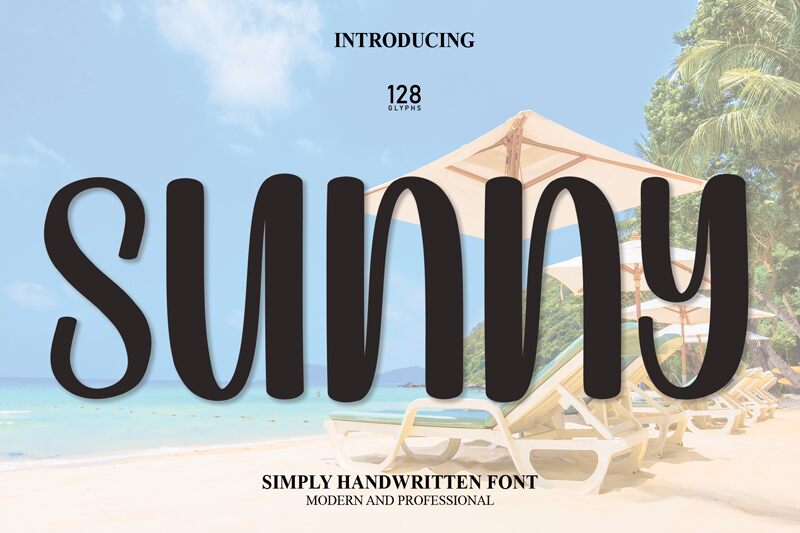
Sunny
Sunny, crafted by Scratchones, is a font that exudes warmth and approachability with its handwritten style, inviting a personal touch to any message. Its condensed form enhances its charm, making it ideal for spaces where intimacy and character are paramount. This font's whimsical curves and casual elegance suggest a playful yet sophisticated tone, perfect for greeting cards, invitations, or any project seeking a touch of handcrafted allure.
Whether gracing the pages of a boutique's branding or adding personality to editorial headlines, Sunny's distinct aesthetic makes it versatile across various design landscapes. Its friendly appearance is well-suited for creative endeavors that aim to convey comfort and joy in their visual narrative.